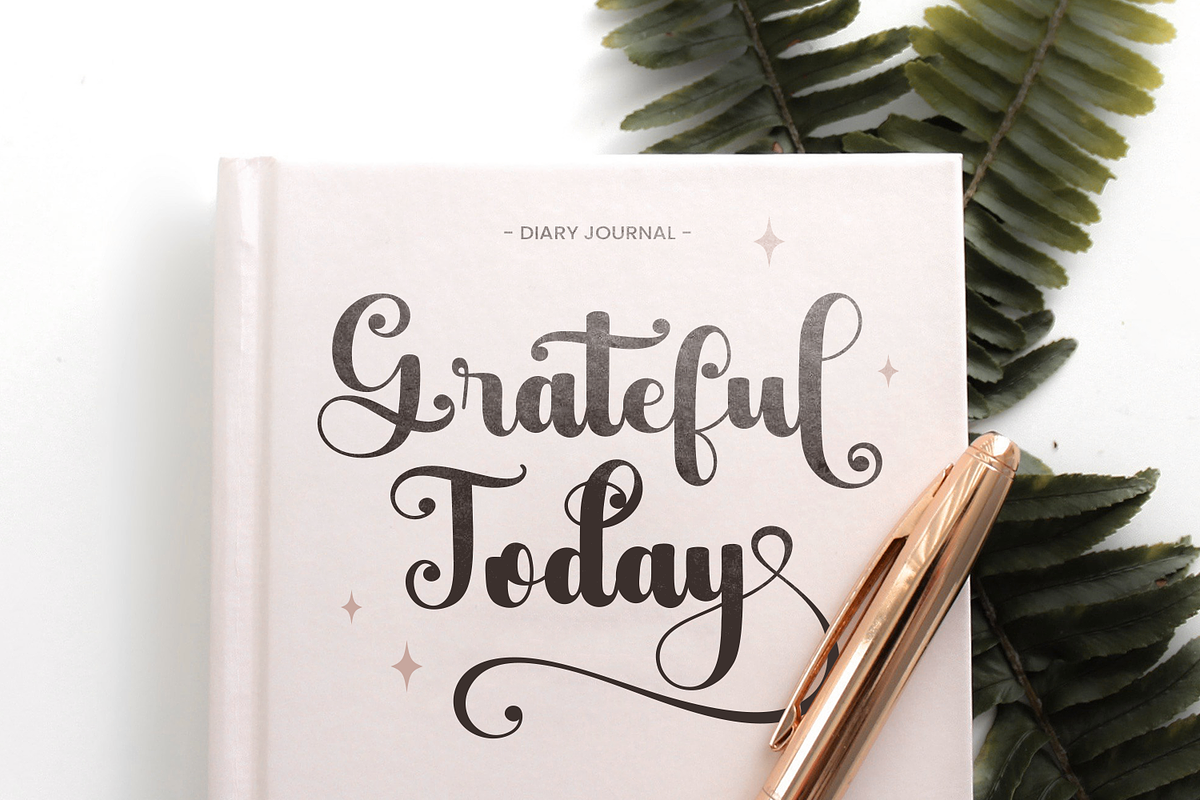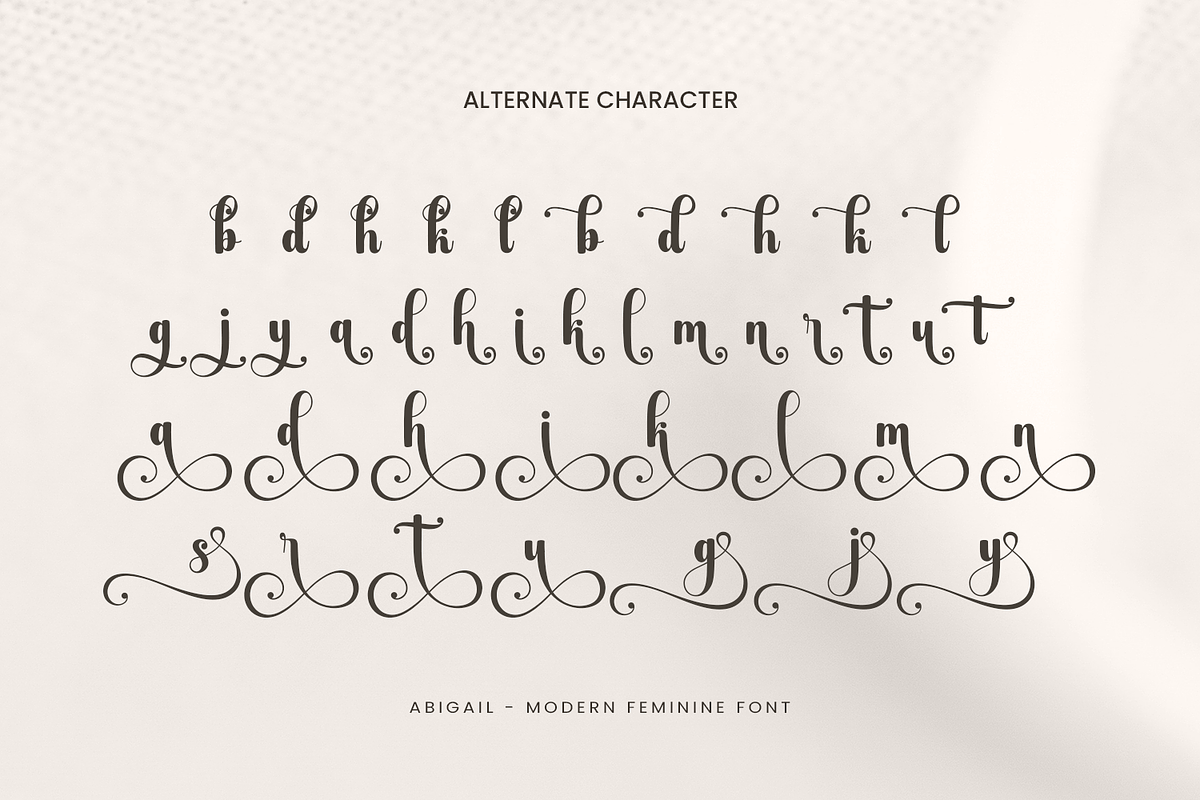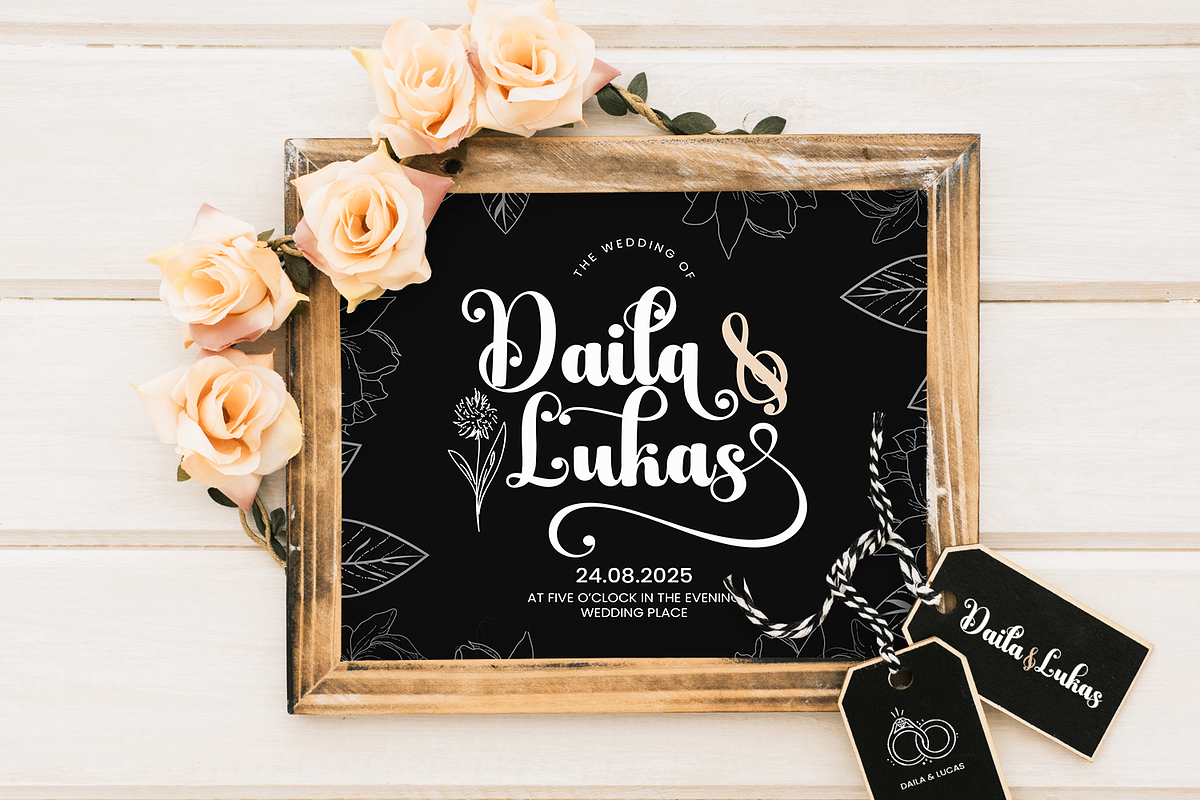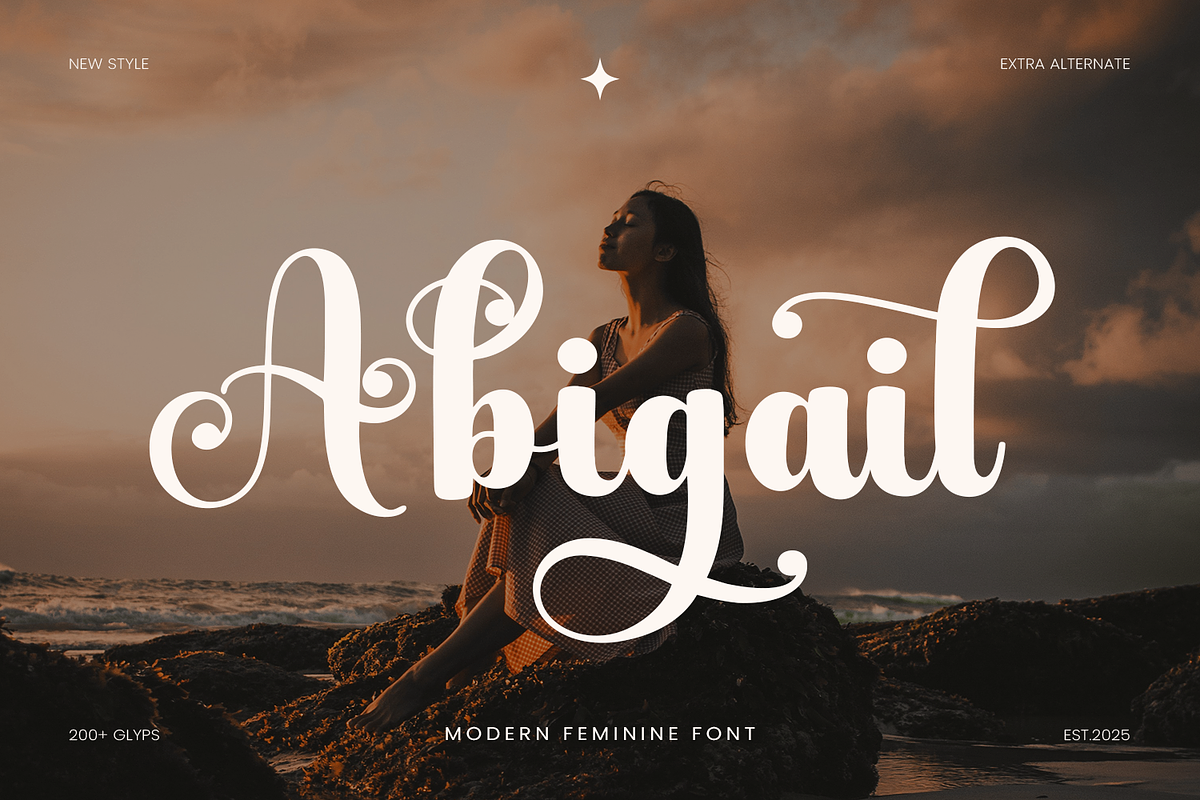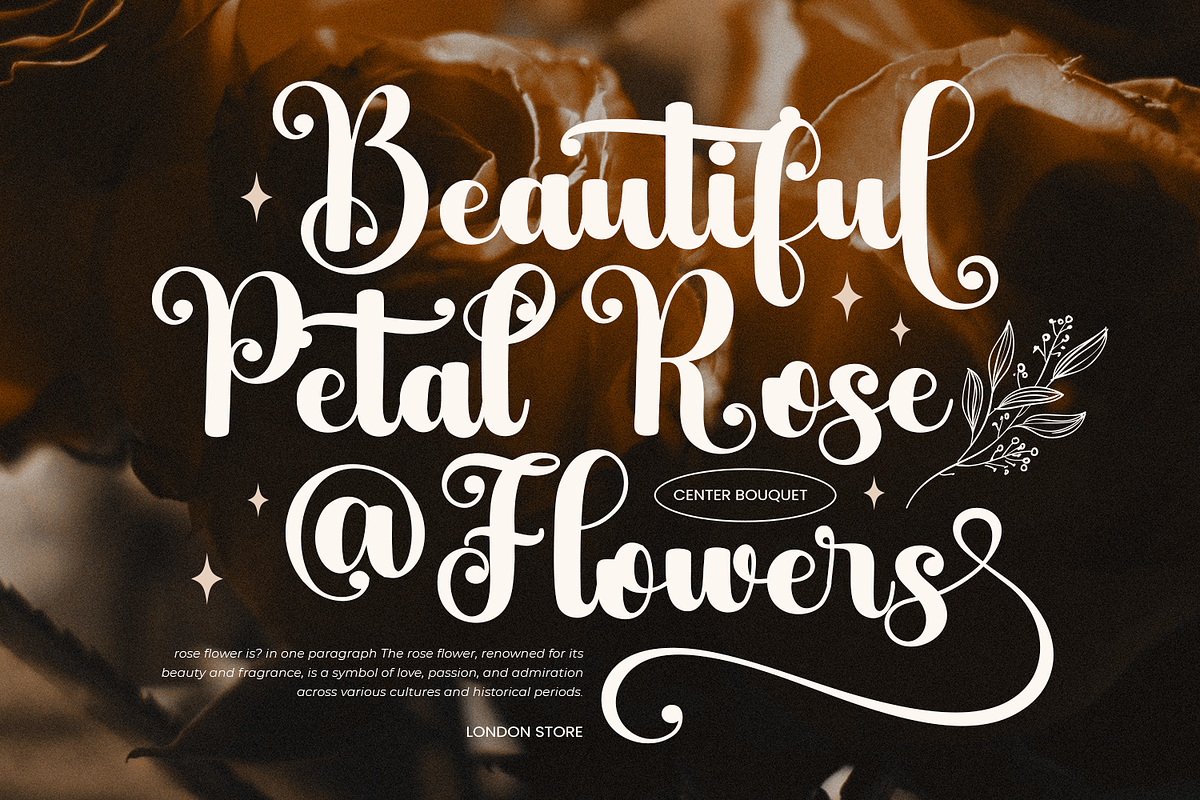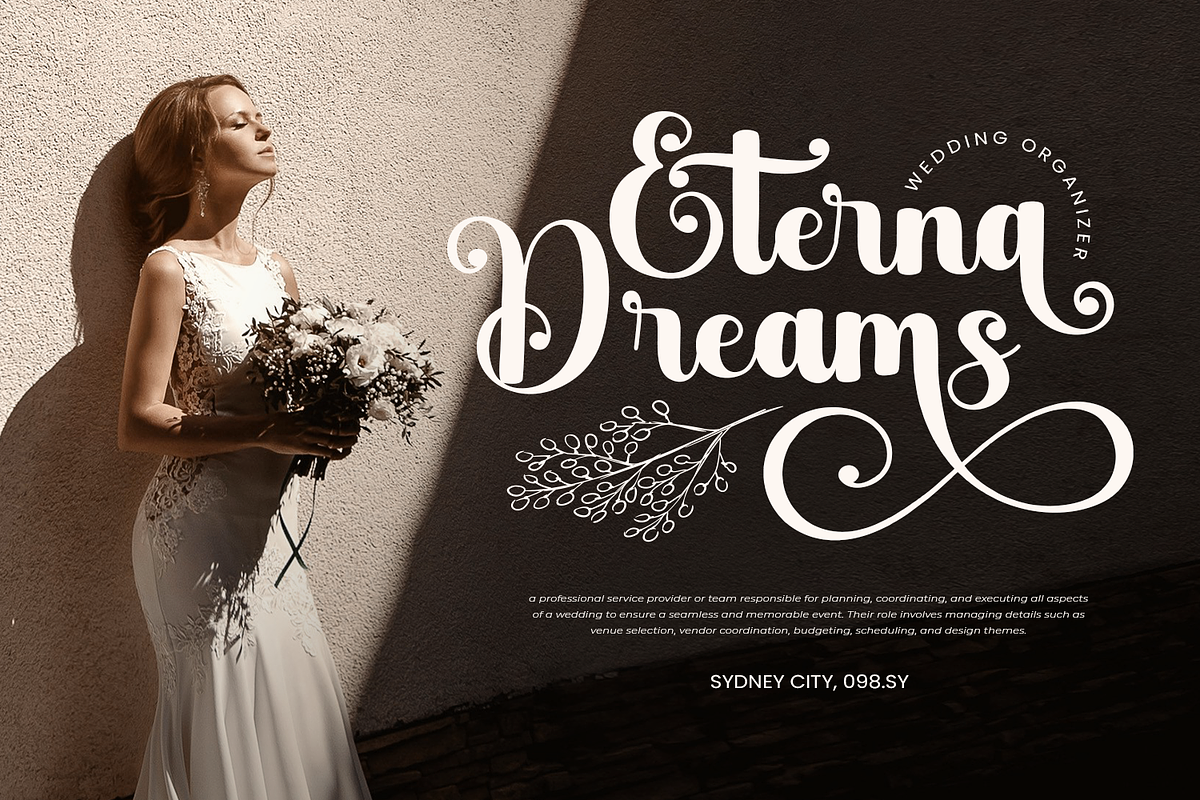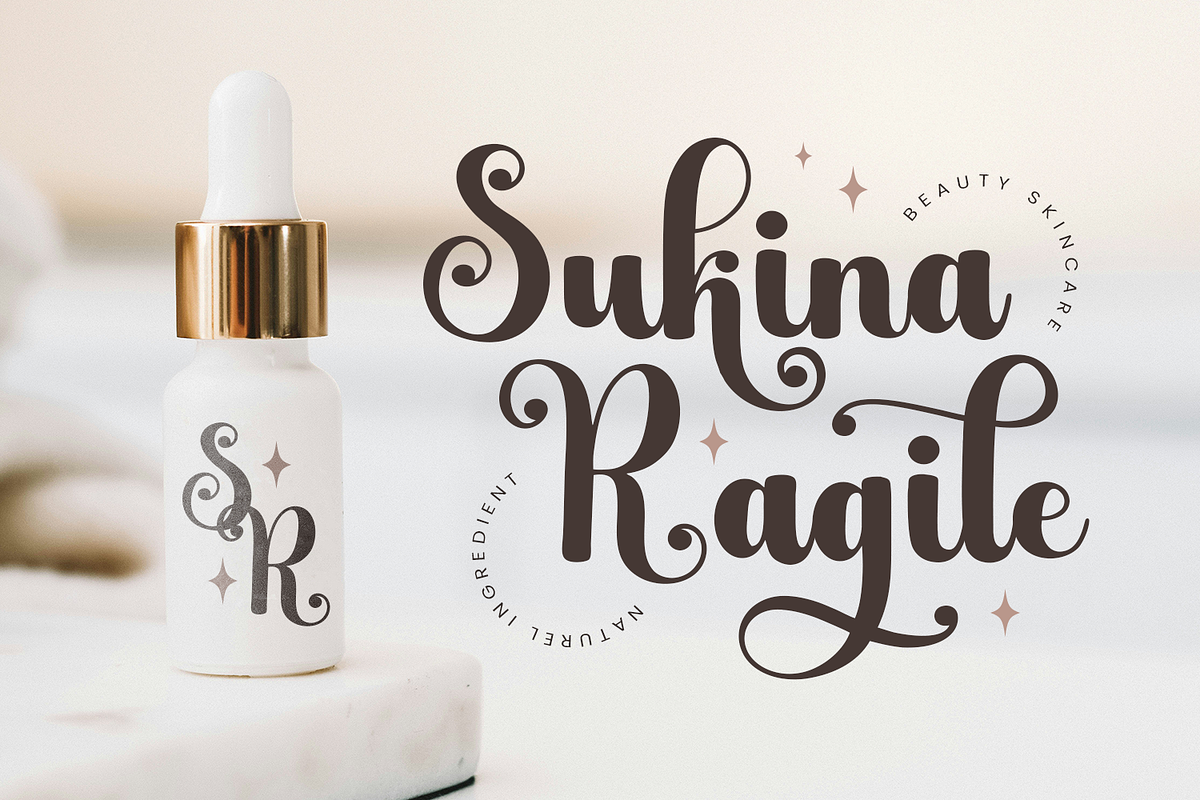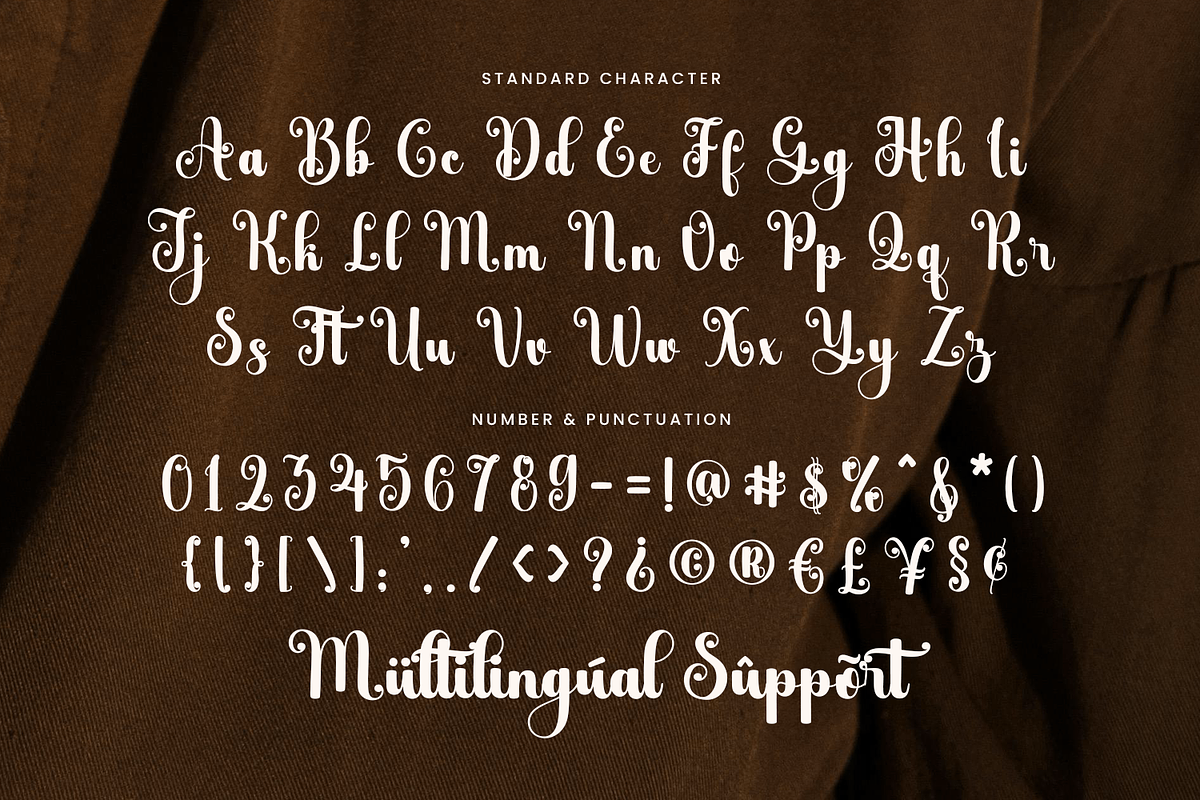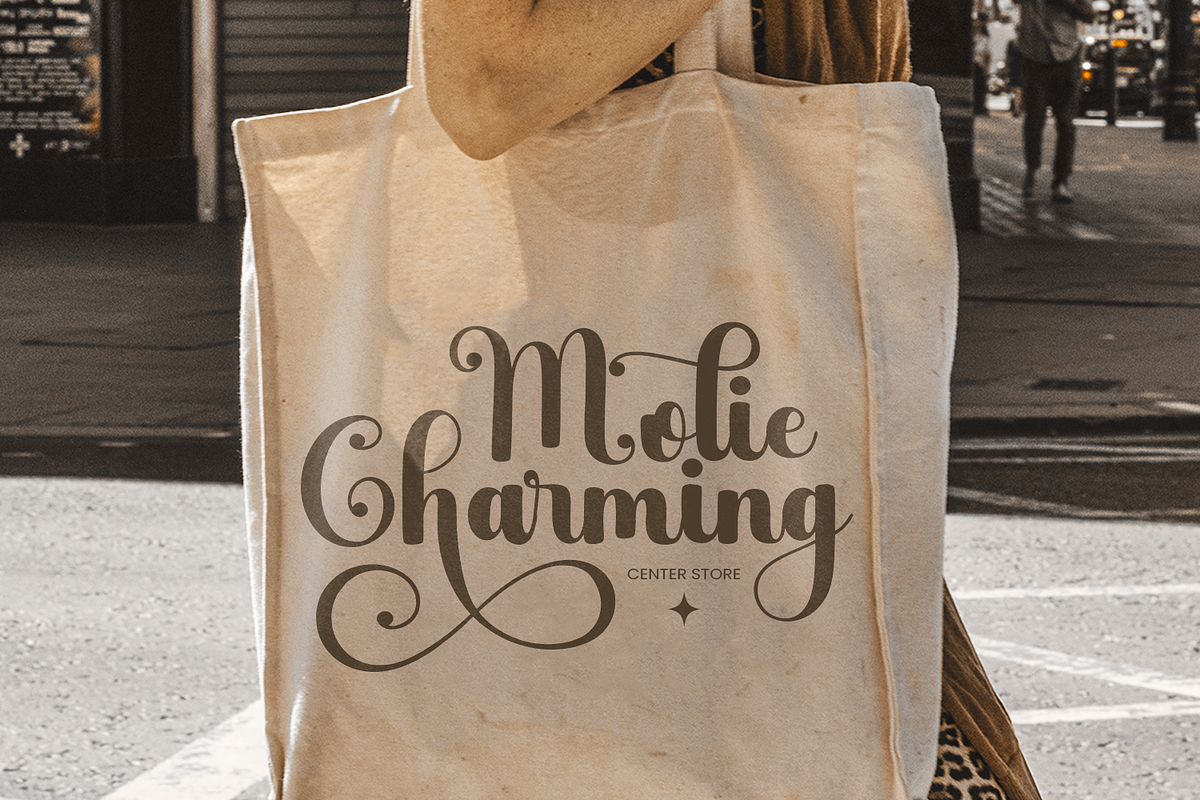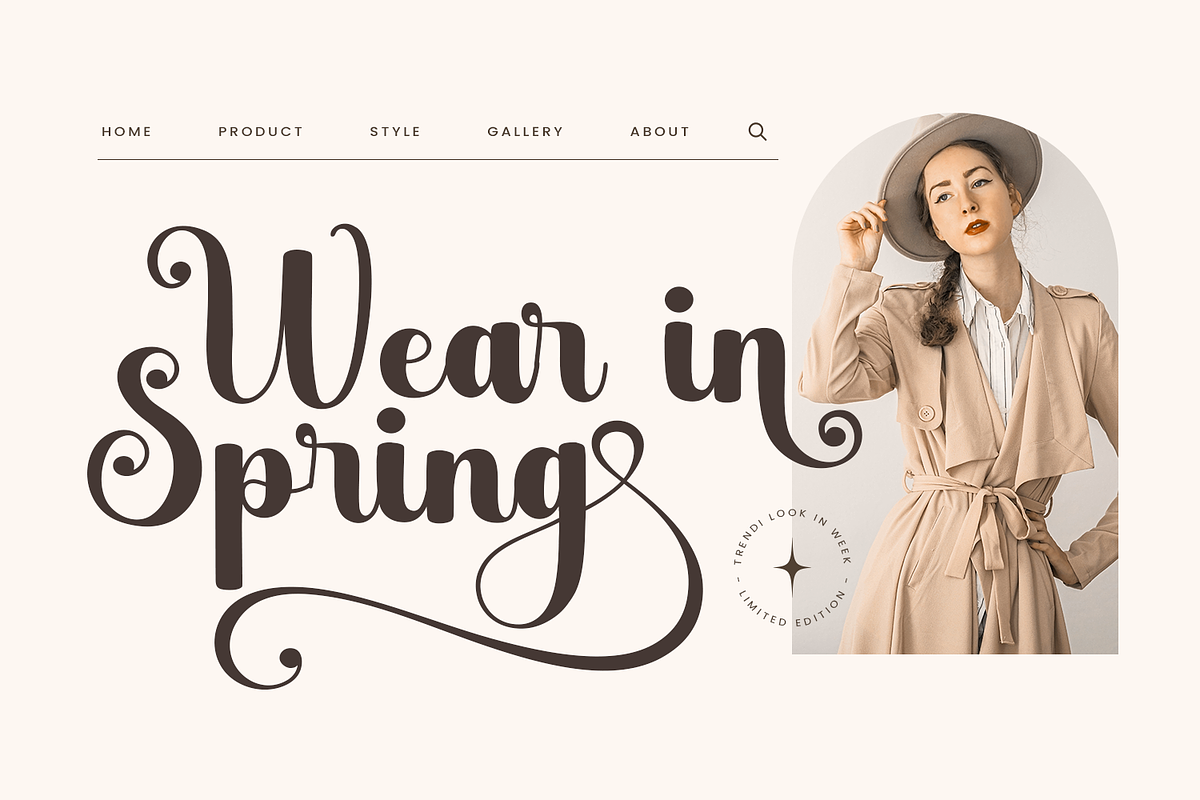
Abigail
Abigail Font is a beautiful and elegant script handwritten typeface, perfectly crafted to bring sophistication and charm to a wide variety of design projects. Its smooth and flowing strokes make it ideal for creating romantic and delicate designs, perfect for wedding invitations, birthday cards, Easter greetings, and Thanksgiving crafts. Whether you're designing something for a special event or a seasonal celebration, Abigail Font exudes a timeless grace that captures attention effortlessly.
What sets Abigail apart is its stunning beginning and ending swash tails on every character, giving your text a natural handwritten feel with an artistic flair. The font includes an extensive range of alternate swashes, allowing you to customize your designs with unique combinations and decorative touches. These flourishes make it a versatile choice for crafting projects such as Cricut designs, embroidery patterns, and custom lettering for personal or professional use.
With its modern yet classic aesthetic, Abigail Font is perfect for seasonal projects throughout the year. From summer and spring designs bursting with lightness to autumn and winter crafts that evoke warmth and coziness, this font brings an extra layer of beauty to your creations. It's a must-have for Christmas and Thanksgiving-themed projects, as well as everyday crafts where elegance and creativity are key.